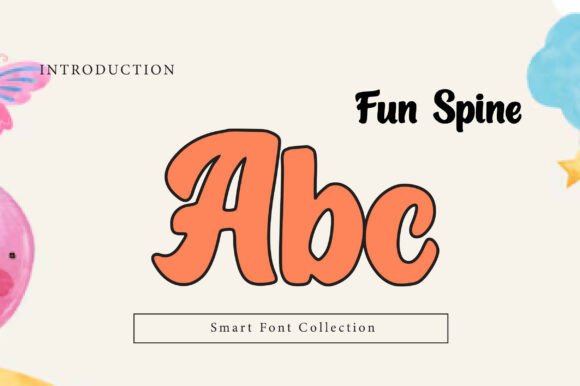
The Perfect Font for a Playful Touch
Who hasn’t felt the rush of excitement when designing a new project, only to be stuck on the perfect font to match the vibe? For designers aiming to create a fun and engaging atmosphere, the search is over. Say hello to the Fun Spine Font, a bold and bubbly display font that’s sure to bring a smile to any project it touches.
This charming font is designed to be the ultimate companion for designers looking to create a playful and approachable aesthetic. With its soft, rounded edges and chunky strokes, the Fun Spine Font is perfect for nursery decor, birthday party invitations, and educational materials. Its friendly and welcoming weight makes it a top-tier choice for any design aimed at a younger audience or a “fun-loving” demographic.
Fun Spine Font Key Features
- Unique Characteristics: Fun Spine Font features a distinctive, playful design with a spine-like motif, adding a touch of whimsy to any text-based application.
- Font Weight and Style: Fun Spine Font is available in 3 font weights (Light, Regular, Bold) and 3 font styles (Regular, Italic, Bold Italic), providing versatility in text formatting.
Fun Spine Font Review
When I first laid eyes on the Fun Spine Font, I couldn’t help but smile. The playful combination of thick and thin lines, along with the quirky curvature of the letters, makes it a font that truly stands out. ✨ The font’s unique design gives it a whimsical feel that’s perfect for anything from children’s book covers to quirky advertisements.
One of the things that really works well with the Fun Spine Font is its ability to be used in a variety of contexts. Whether you’re looking to add a touch of whimsy to your website or want to create a fun and playful atmosphere in a brochure, this font is sure to deliver. ✨ The font’s versatility is a major advantage, and it’s a key factor in its overall appeal.
- ⚠️ The font can be a bit difficult to read at smaller sizes, especially in body text.
- ⚠️ The font may not be suitable for formal or professional applications, due to its playful and whimsical nature.
- ⚠️ Some users may find the font’s quirky design to be a bit too much, and may prefer a more traditional font.
Overall, I think the Fun Spine Font is a great choice for anyone looking to add a touch of whimsy and personality to their design. While it may not be suitable for every application, it’s a font that’s sure to stand out and make a lasting impression. ✨
For optimal results, use the Fun Spine Font in bold or italic styles to add emphasis to your text. You can also combine it with other fonts to create a unique and playful design. Experiment with different font sizes and colors to add visual interest to your design.
The Fun Spine Font is perfect for creating eye-catching headings, titles, and quotes. It’s also great for adding a touch of whimsy to your design, making it ideal for children’s books, party invitations, and social media graphics.
Alternatives to Fun Spine Font
Great Vibes Font is a modern, handwritten font ideal for use in creative and artistic projects, such as invitations, posters, and social media graphics. It has a playful and whimsical feel that’s similar to Fun Spine Font, but with a more refined and elegant touch. Great Vibes Font is suitable for projects that require a high level of sophistication and creativity.
Comparison: Great Vibes Font is more elegant and refined than Fun Spine Font, making it a better choice for high-end projects. However, it may lack the quirky charm of Fun Spine Font in more casual contexts.